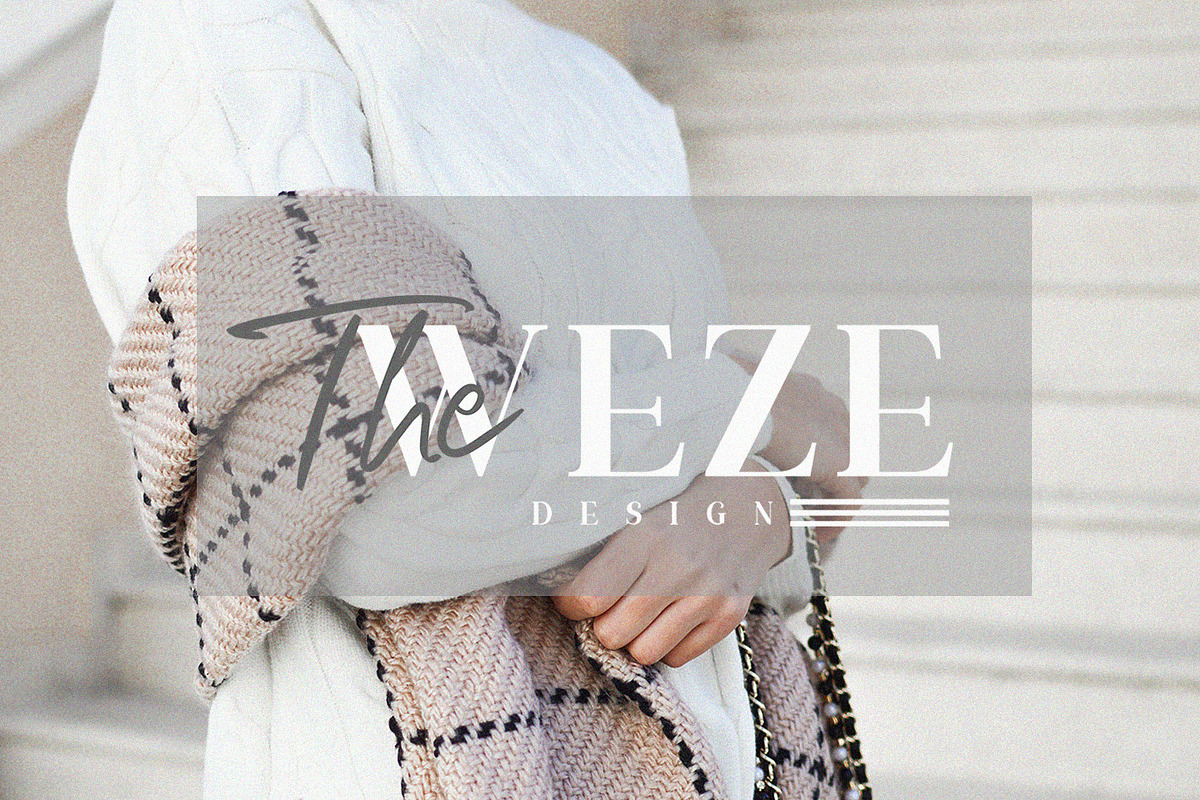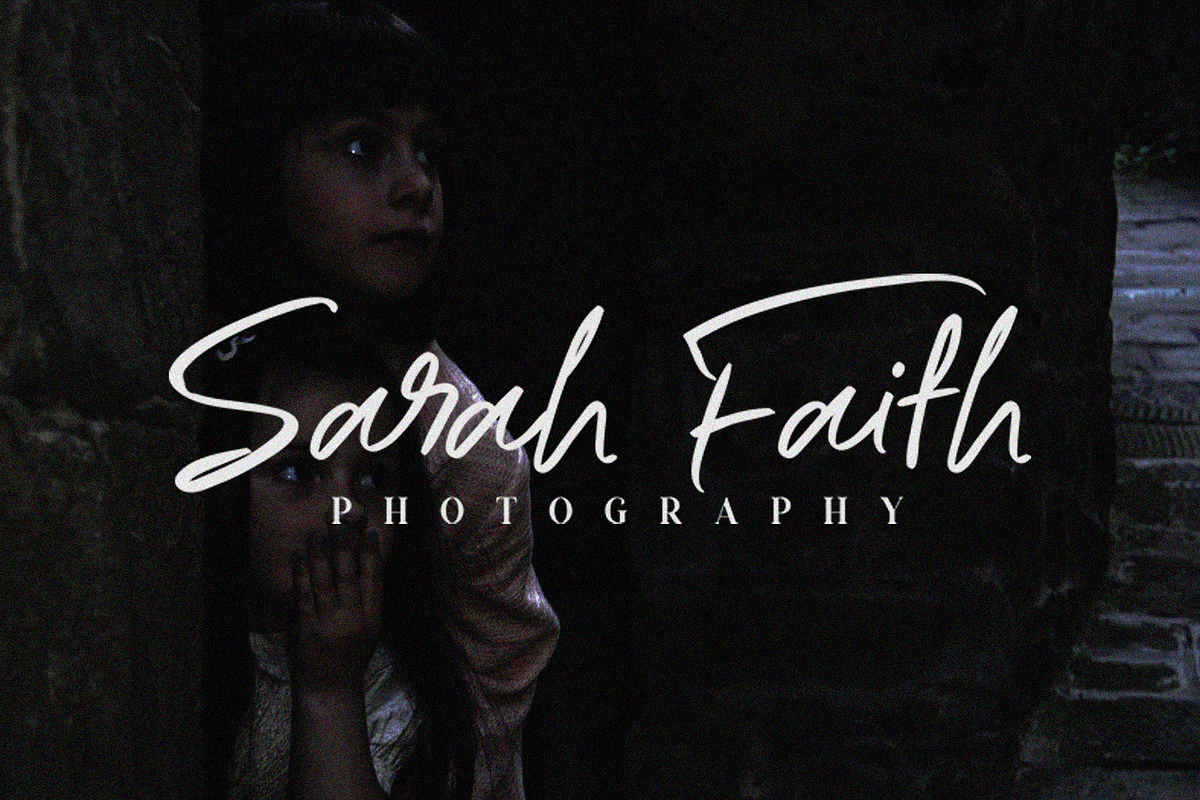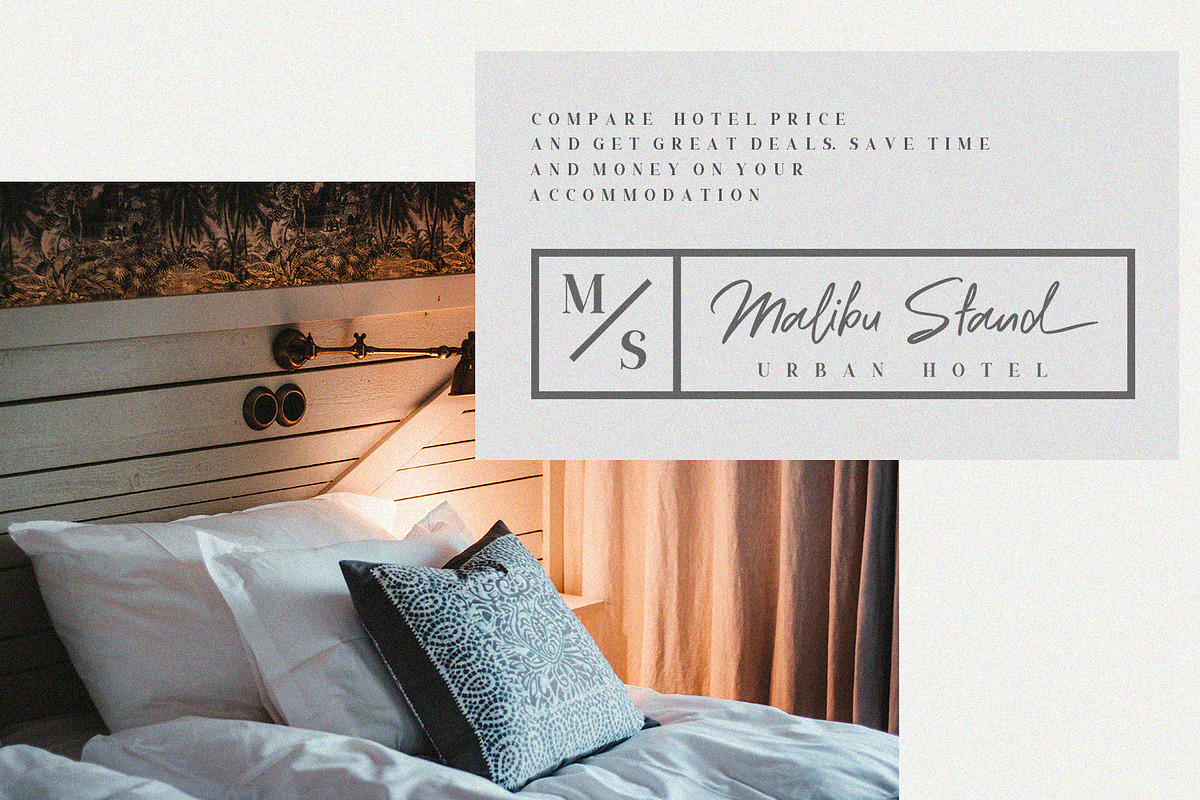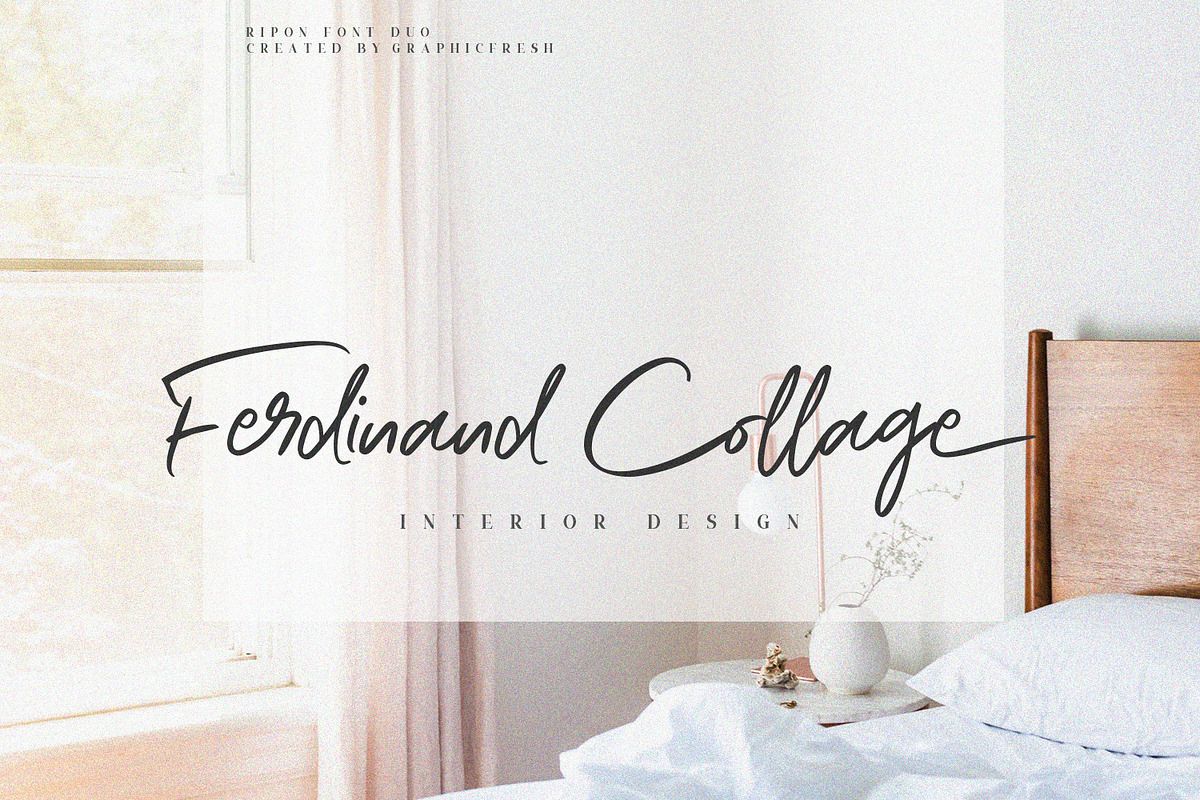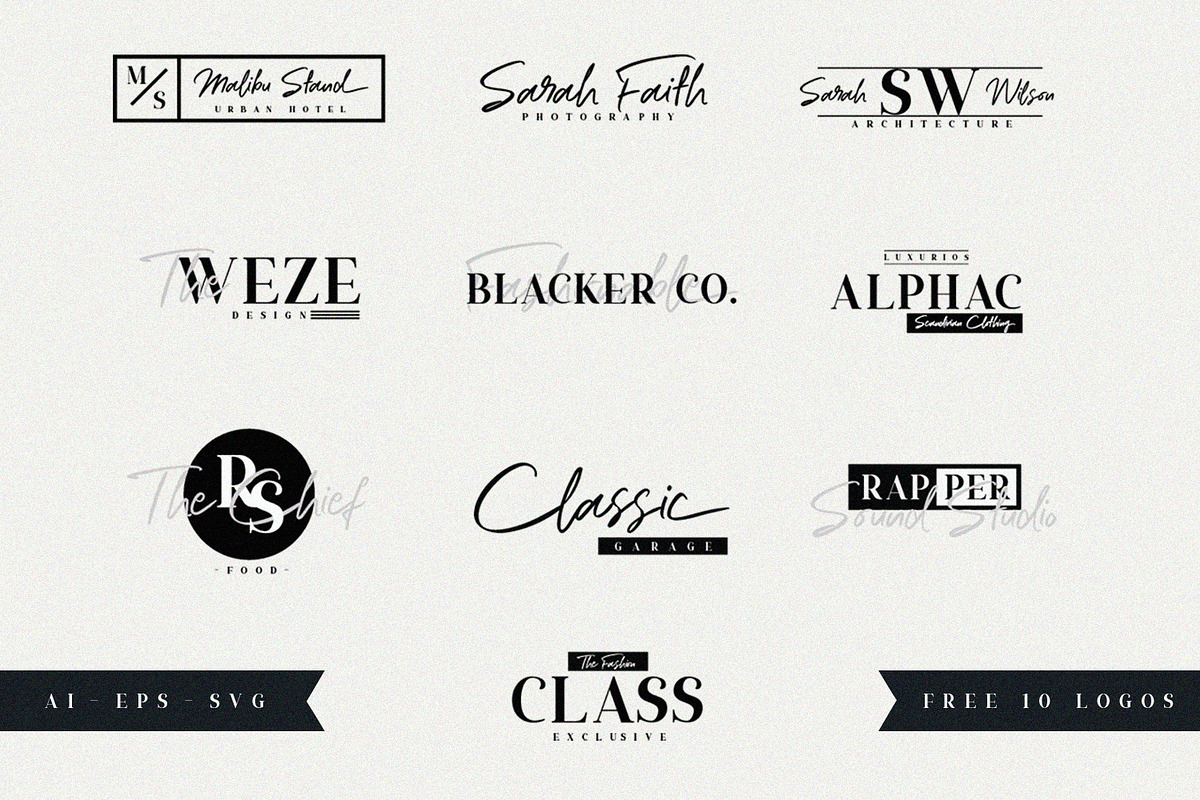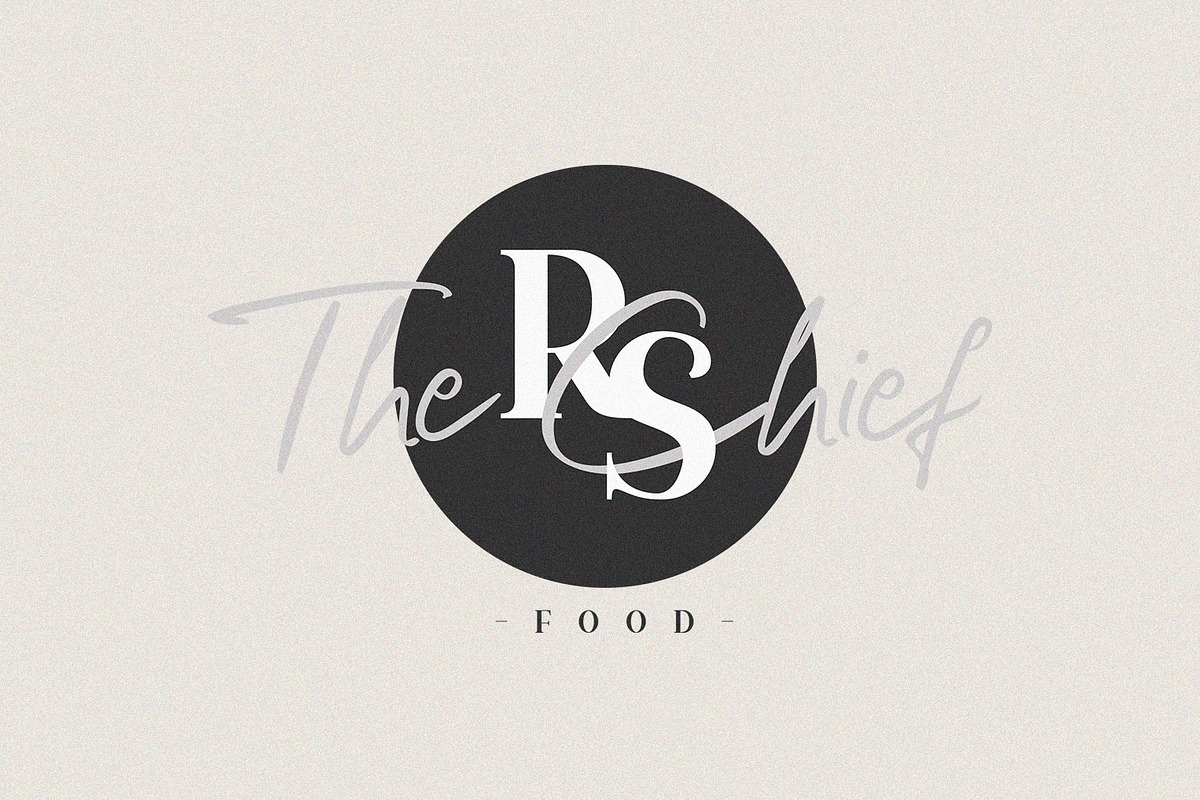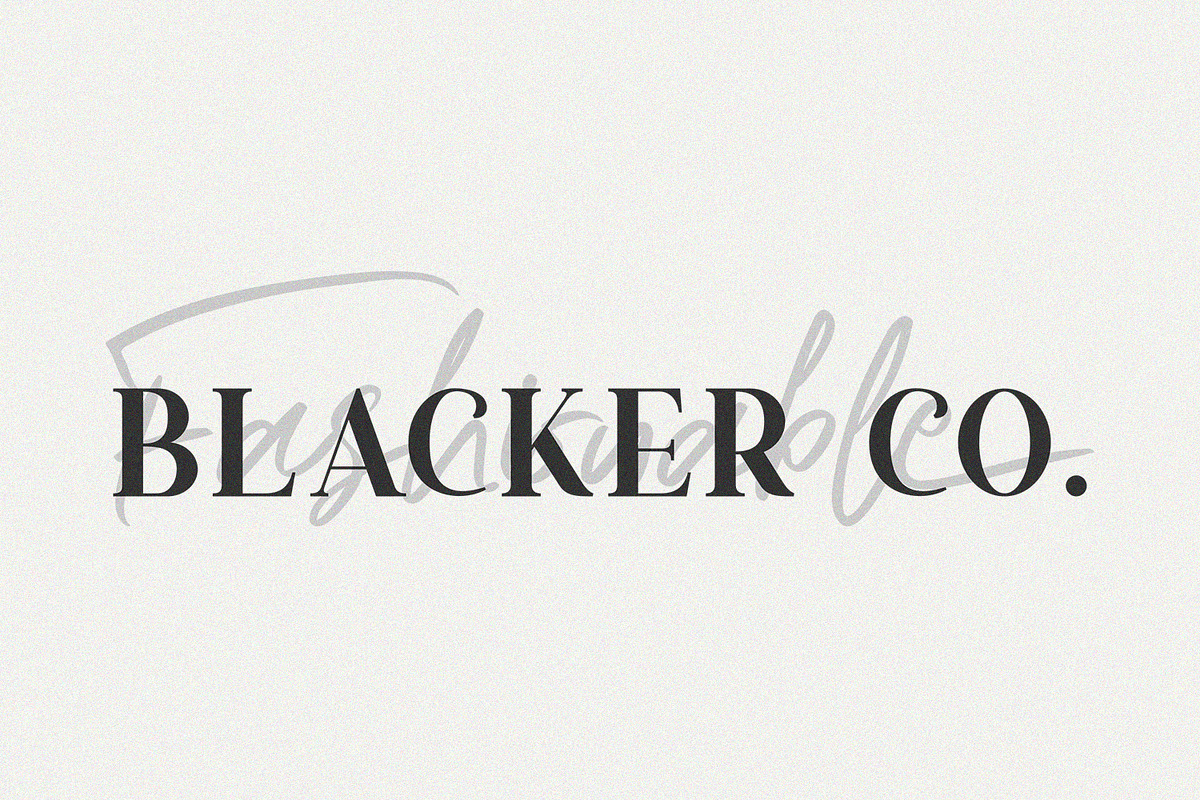
NEW! Ripon Font Duo + Bonus
Ripon Font Duo // Free 10 Logos Template
Two combinations of serif and script. Serif is known as a classic style so handwriting is perfect when combined. So, we made two different fonts, but one name.
This fonts is perfect for wedding invites, logo design, book covers, stationery, marketing, magazines, inspirational quotes and much more.
Upper + Lowercase Letters w/ alternates (For Ripon Script)